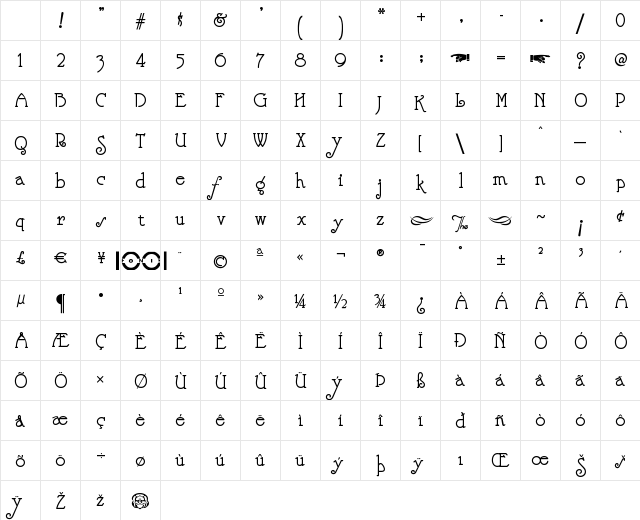
Complete Nickelodeon NF Regular glyph index. Displaying only characters natively supported by Nickelodeon NF Regular font.
Nickelodeon NF is a composed and adaptable typeface that performs quietly and consistently across a wide range of design contexts.